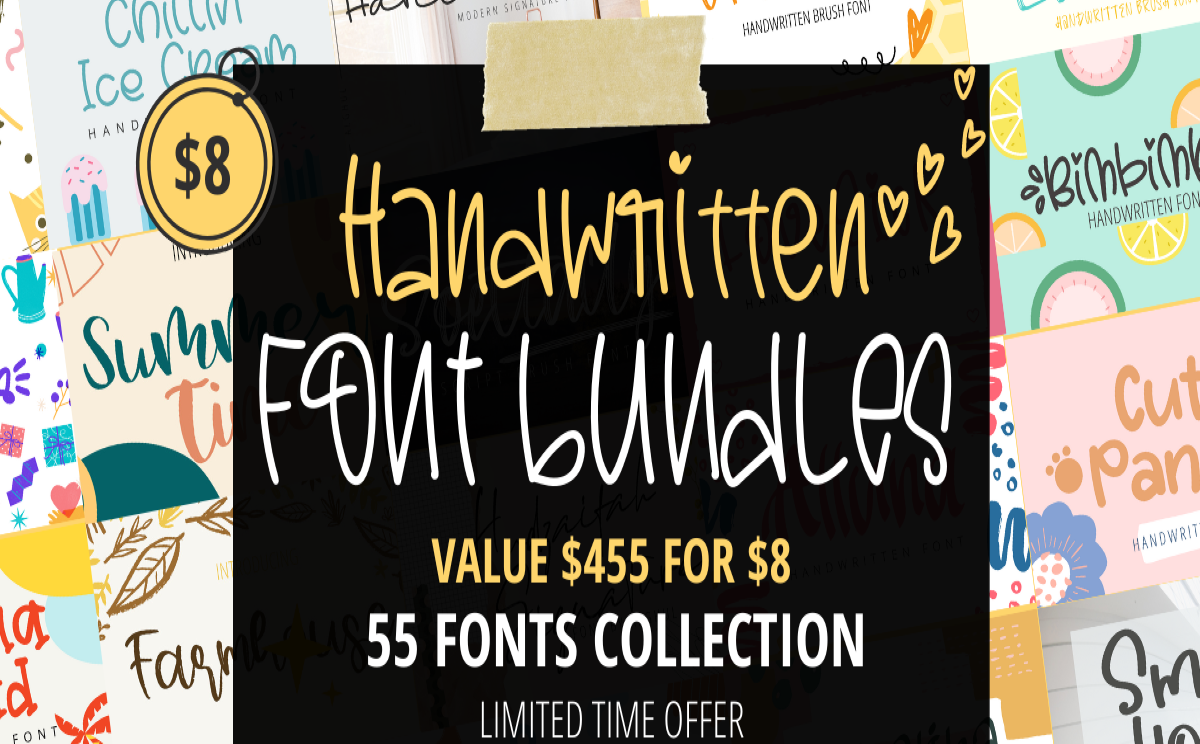
Handwritten Font Bundle
Elevate your design projects with our Handwritten Font Bundle, featuring a collection of unique and stylish handwritten fonts. Perfect for adding a personal touch to your branding, logos, invitations, and more.
• Variety of font styles including script, casual, and elegant.
• Multiple weights and styles for versatile usage.
• High-quality design suitable for both digital and print applications.
Ideal for branding, web design, print materials, and UI elements. Use these fonts to create eye-catching designs that stand out.